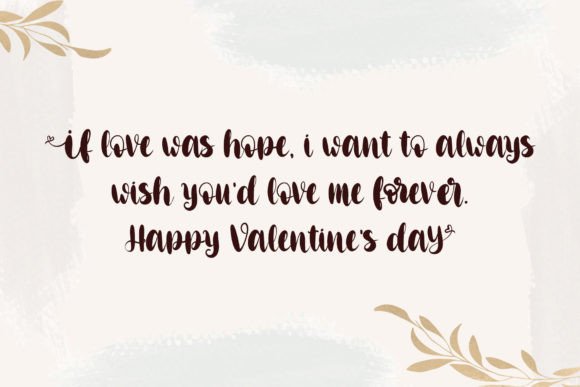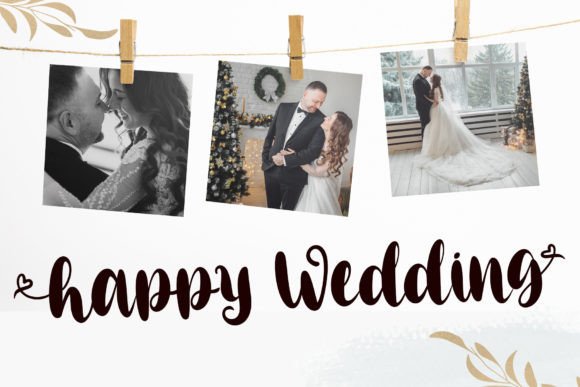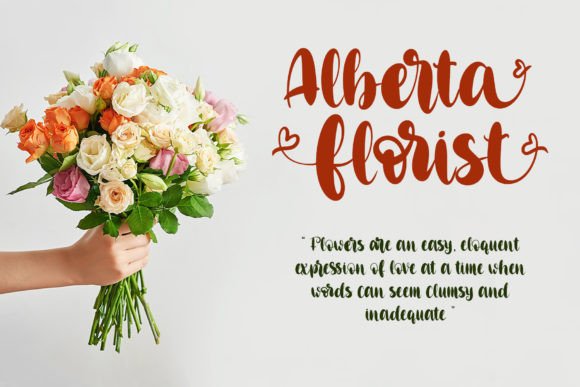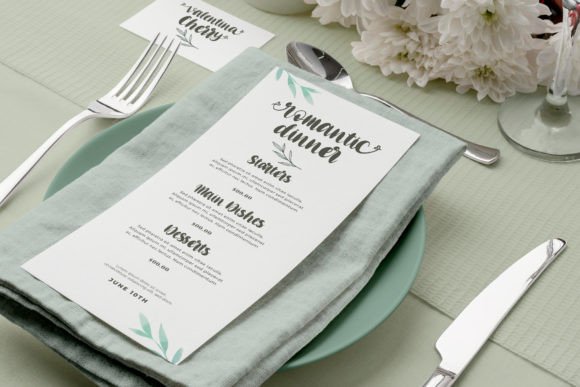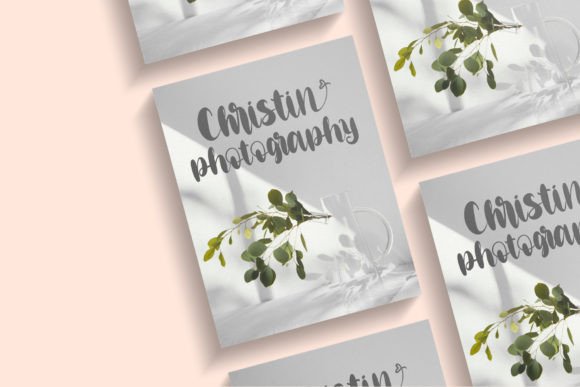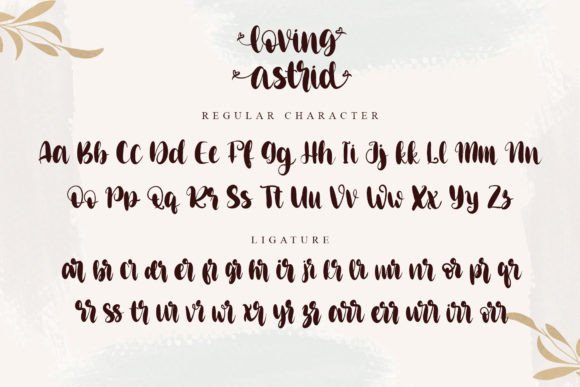
Introduction to Loving Astrid Font
As designers, we’ve all been there – staring at a blank canvas, trying to bring our creative vision to life. The perfect font can make all the difference, elevating our projects from bland to grand. And that’s exactly what Loving Astrid Font is designed to do – add a touch of sweetness and sophistication to your next creative project.
Loving Astrid Font is a game-changer for designers, offering a fresh and unique handcrafted look that’s perfect for branding, invitations, posters, and more. Its classy and modern aesthetic is sure to impress, making it a valuable addition to any design resource.
Key Features of Loving Astrid Font
- High-quality design resource for creative projects, ideal for digital artwork and print materials.
- Unique, elegant script font with a transparent background, perfect for adding a touch of sophistication to any design.
- Designed to be versatile and easy to use, with a wide range of applications in graphic design, digital art, and more.
- Perfect for designers and artists looking for a high-quality, free design resource to elevate their creative projects.
Honest Review: Loving Astrid Font
As a designer, I’m always on the lookout for high-quality design resources to elevate my creative projects. I recently stumbled upon the Loving Astrid Font, and I’m excited to share my honest review with you.
- The Loving Astrid Font features a unique, elegant design that’s perfect for adding a touch of sophistication to any project.
- The font has a transparent background, which makes it easy to customize and integrate into any design.
- The Loving Astrid Font is a relatively new release, and as such, it may not be as widely supported as more established fonts.
- The font may not be suitable for very large-scale projects, as it’s designed more for personal and creative projects.
Overall, I’m impressed with the Loving Astrid Font. Its unique design and high-quality features make it an excellent addition to any designer’s toolkit. While it may have some limitations, I believe it’s a great resource for designers working on creative projects.
Loving Astrid Font
The Loving Astrid Font is a high-quality, free design resource ideal for creative projects. It features a transparent background, making it versatile for various design applications.
For optimal results, use the Loving Astrid Font in conjunction with a solid background or contrasting colors.
Common use cases include headings, titles, and short paragraphs in design projects, social media graphics, and marketing materials.
Q: Does the Loving Astrid Font include a transparent background?
Yes, the Loving Astrid Font includes a transparent background, making it perfect for designers who need to create graphics with a clean and minimalist look. The transparent background allows you to easily combine the font with other design elements and achieve a high-quality finish.